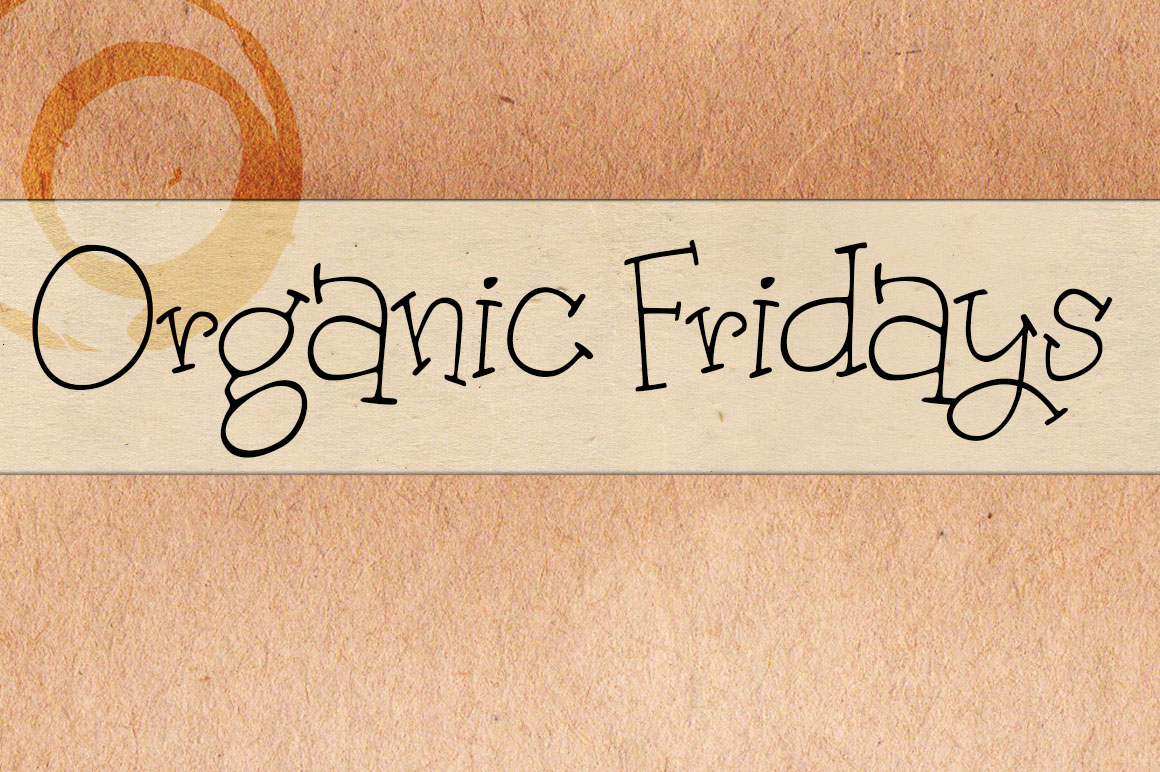
HomeScript FontsOrganic Fridays Font Script Fonts Organic Fridays Font FacebookXPinterestWhatsApp About Organic Fridays Font Organic Fridays is a crafty font full of serifs and personality. Great for cards and scrap-booking! DOWNLOAD ON CREATIVE FABRICAThis font is sold and delivered by Creative Fabrica. Font Canyon may earn a commission if you buy through this link. People also explored Inkster Calendar Font Summer Vintage Font Boho Font Kookyheads Font Poignant Christmas Story Font Amaryllis Font Jack and Kate Font 291 0 TagsOrganic Fridays Font Previous articleSomething Blue Bold FontNext articleOrganic Fridays Lined Font LEAVE A REPLY Cancel reply Comment: Please enter your comment! Name:* Please enter your name here Email:* You have entered an incorrect email address! Please enter your email address here Website: Save my name, email, and website in this browser for the next time I comment. Personal Use Free Proudly Personal Use Free Read more about this font Remember Personal Use Free Read more about this font Bukan Personal Use Free Read more about this font Stereofidelic Personal Use Free Read more about this font BLOG Where to Buy American Fonts Online in 2024 Where to Buy American Fonts Online: The Ultimate Guide for 2024 Looking for the perfect American font to elevate your design projects? You're in the... How to Cut Any Font on Cricut: Convert a Font to SVG (Free) Using Fonts in Digital Marketing: Tips to Strengthen Your Brand Identity The 10 Best Handwriting Fonts to Add Personality to Your Designs